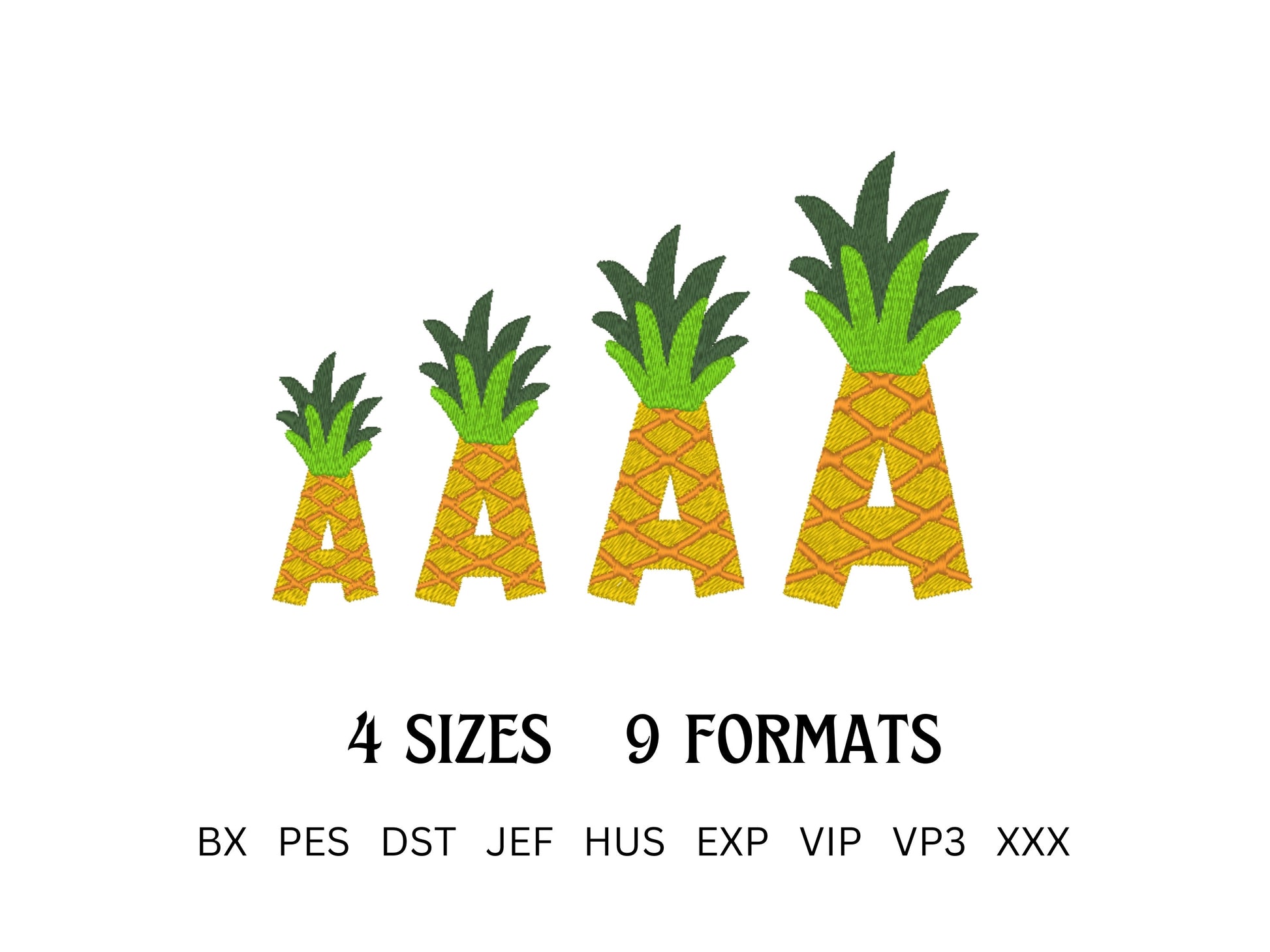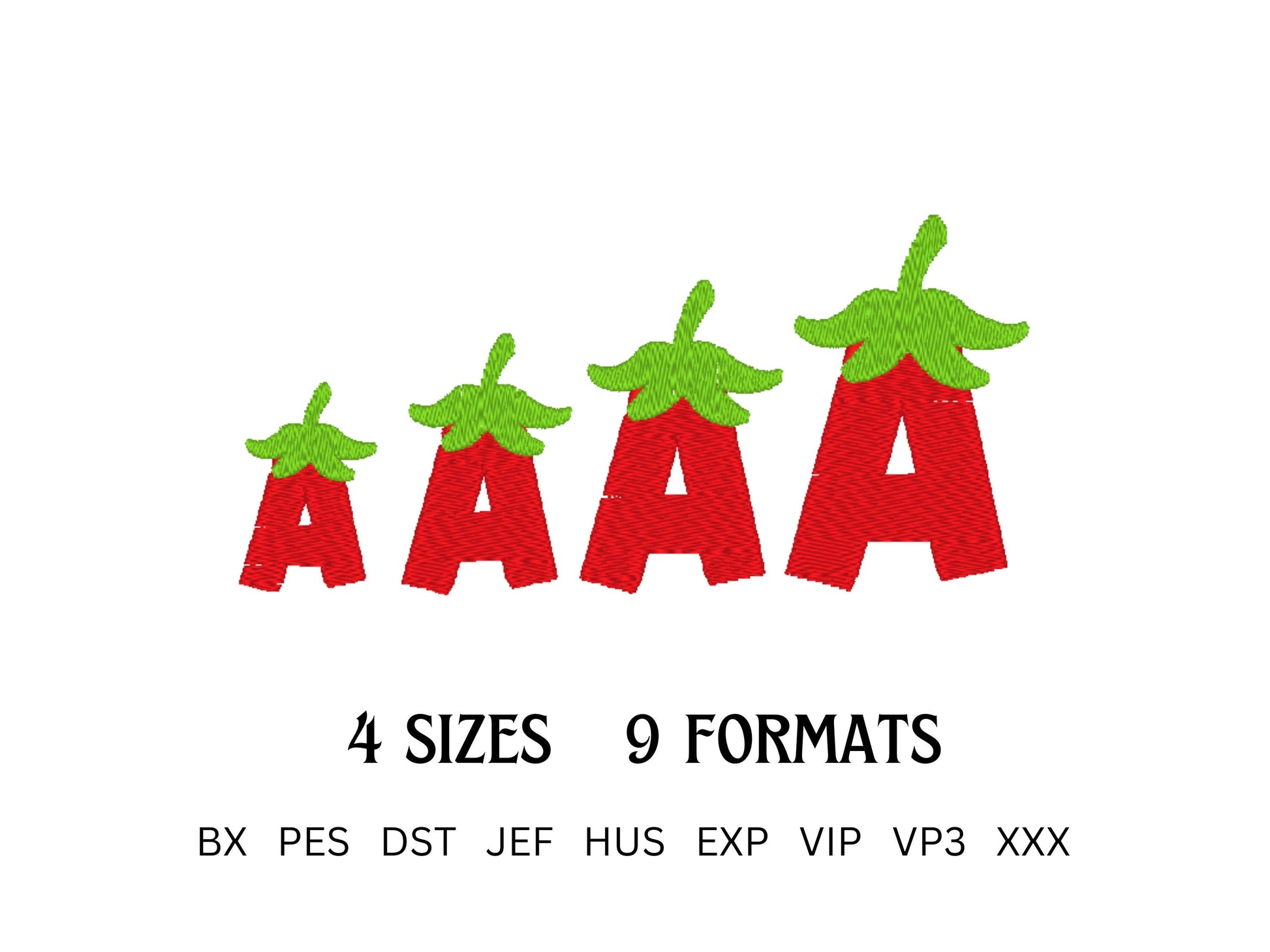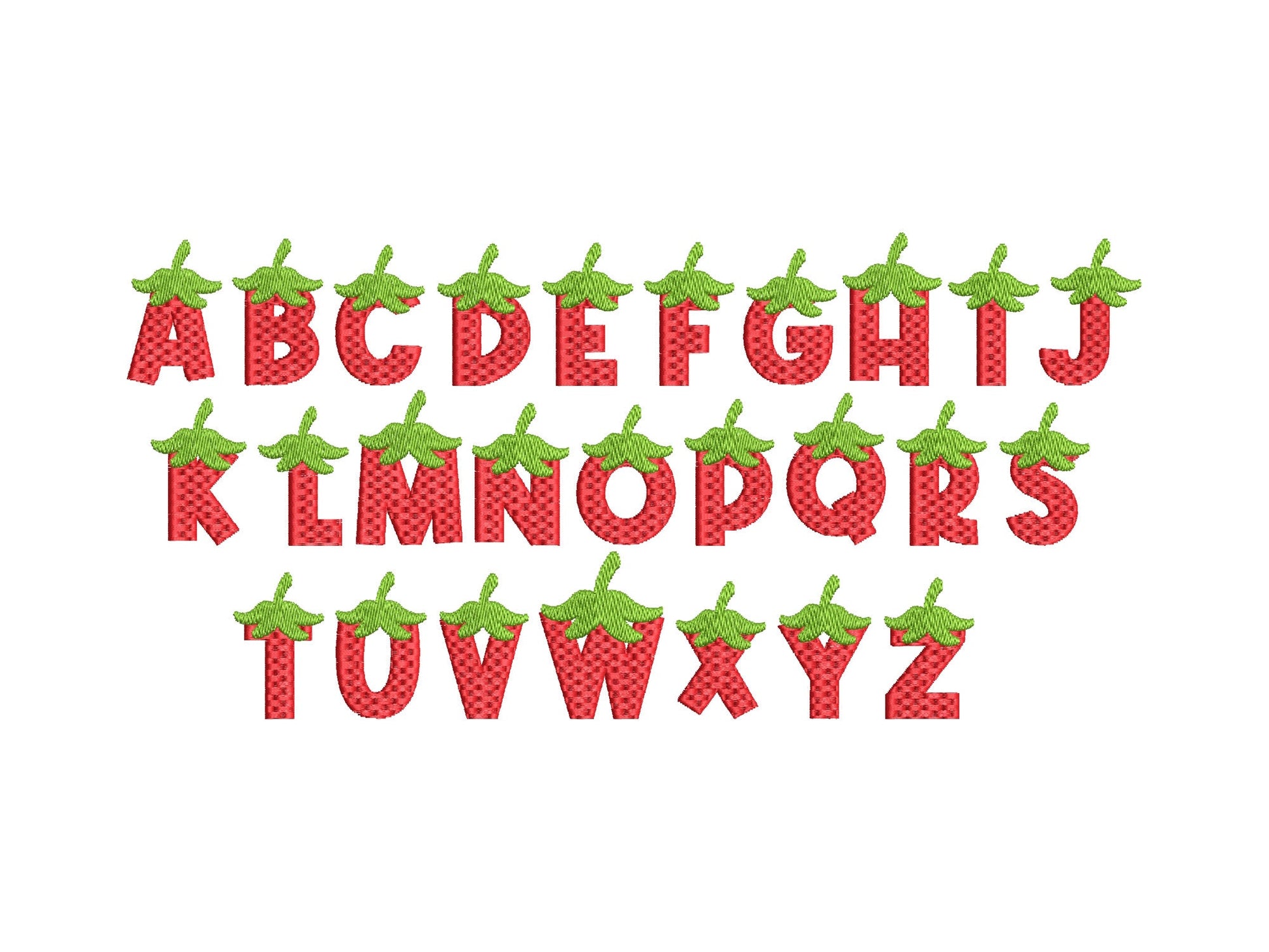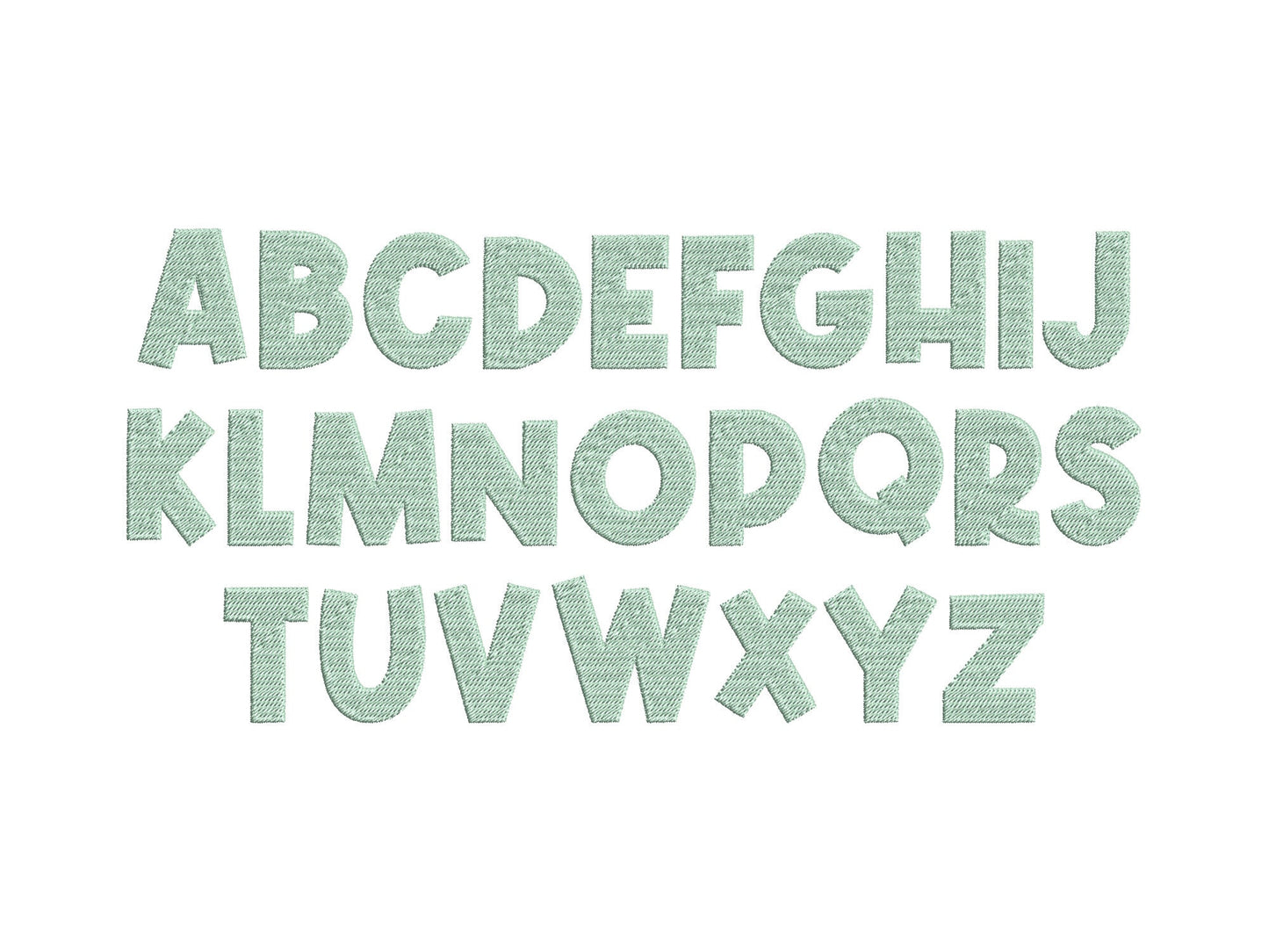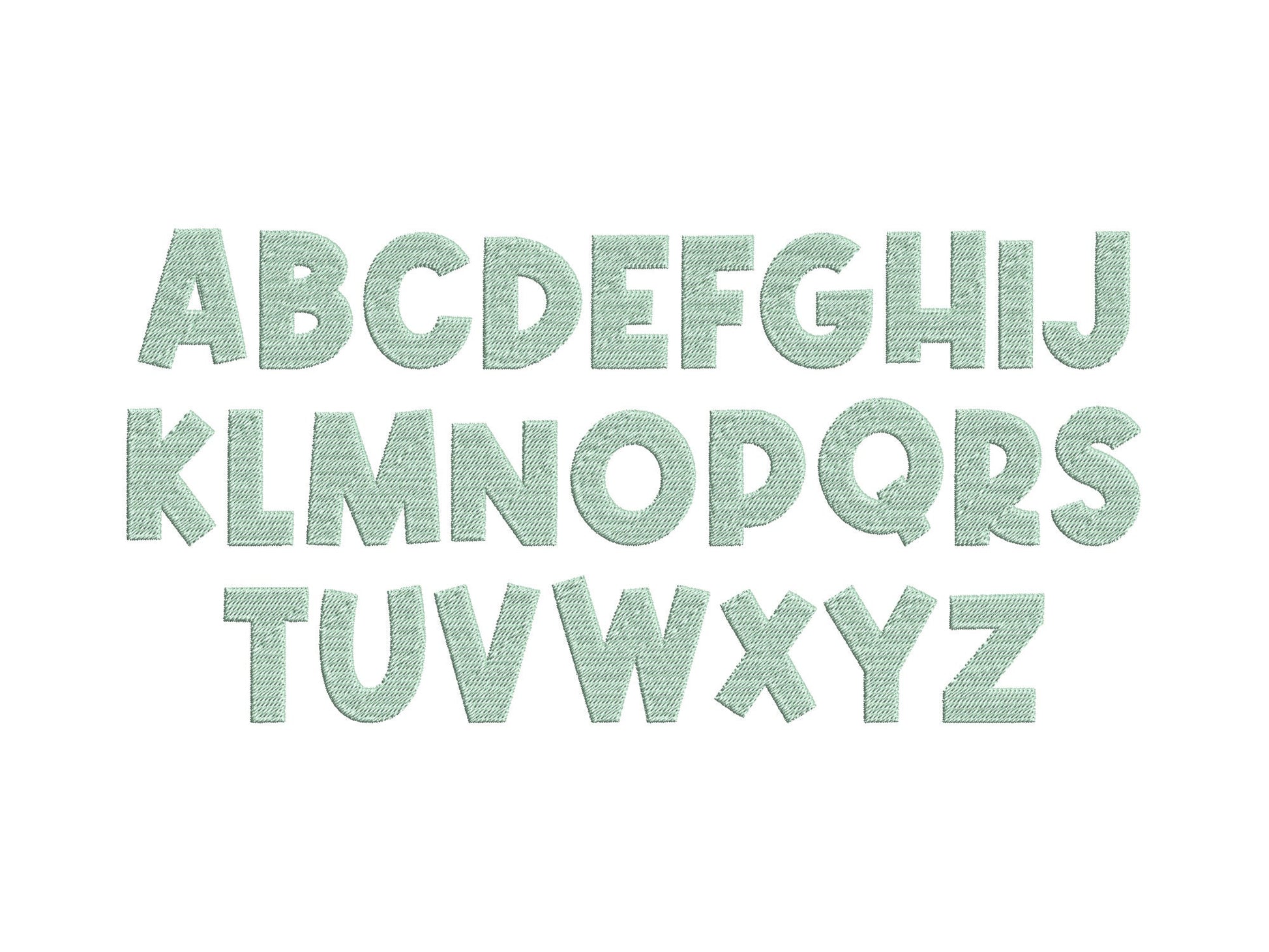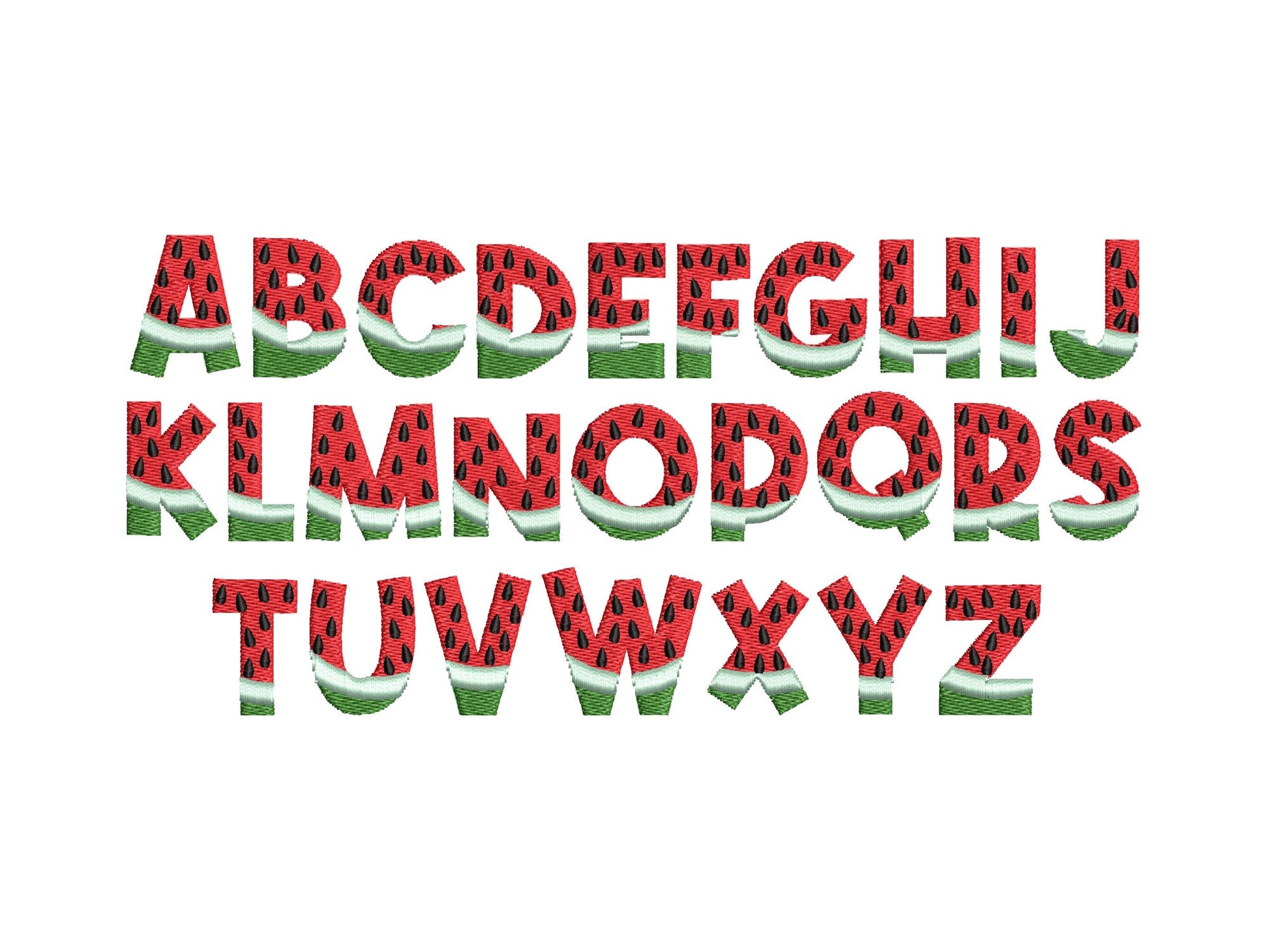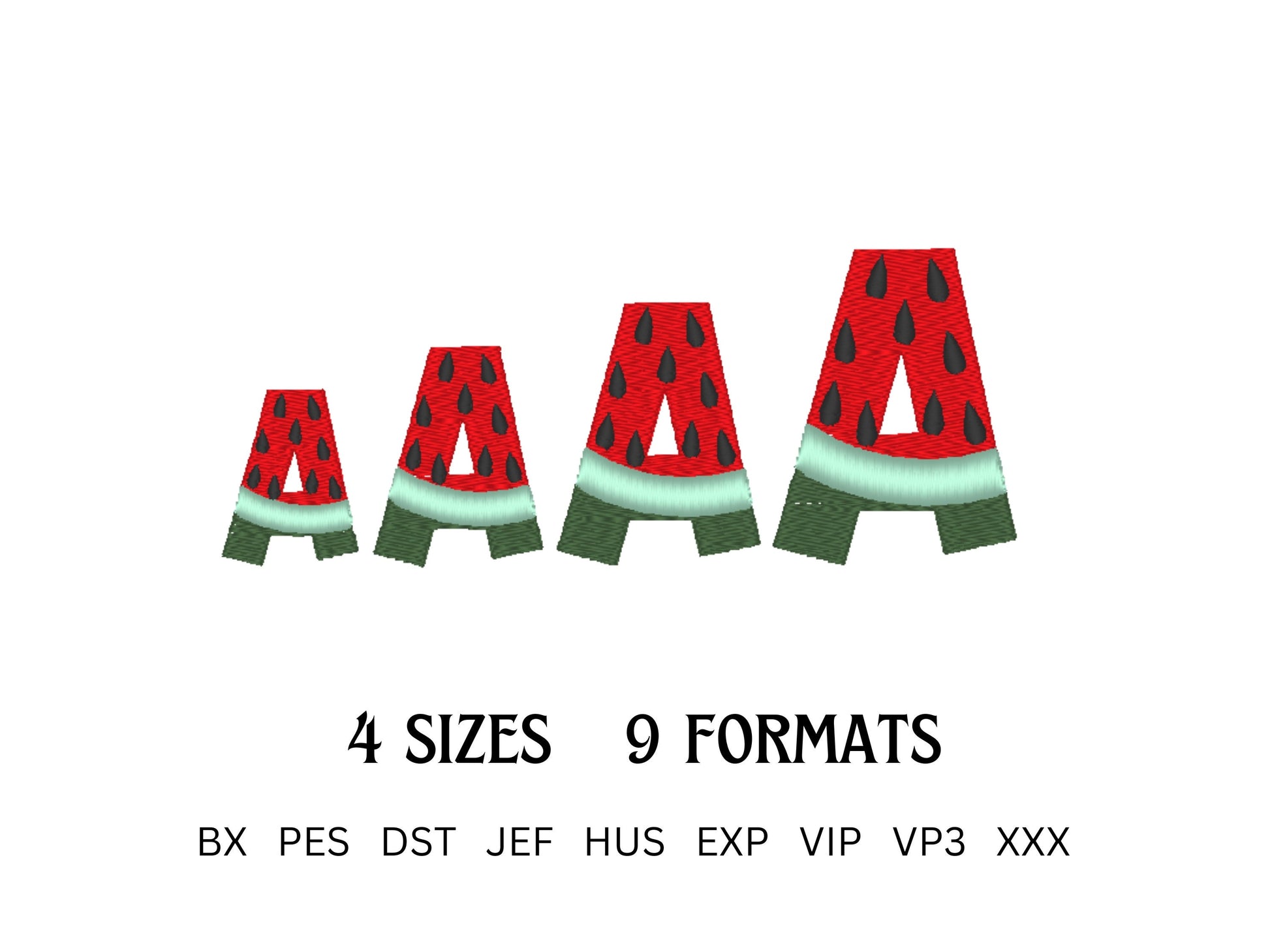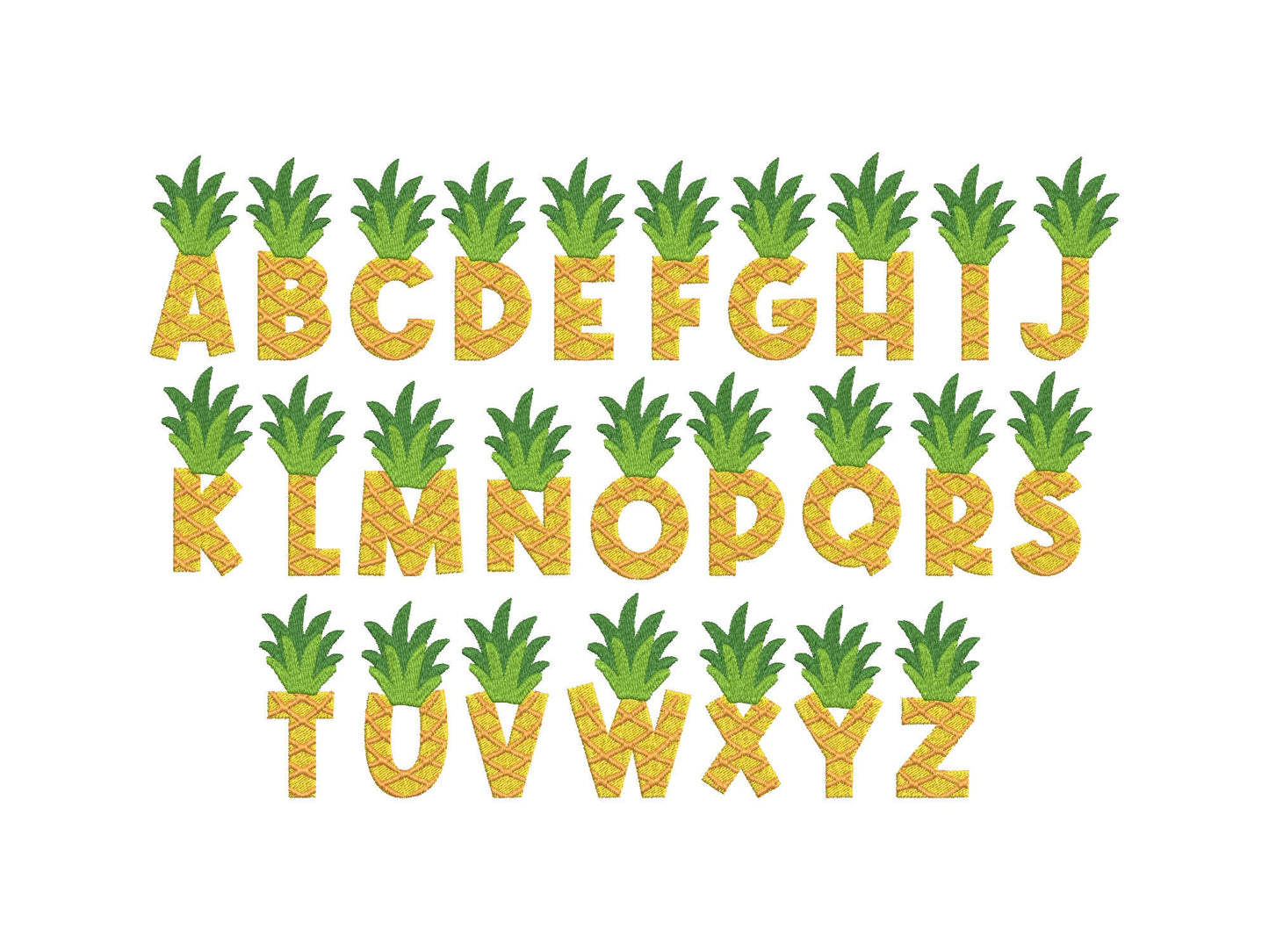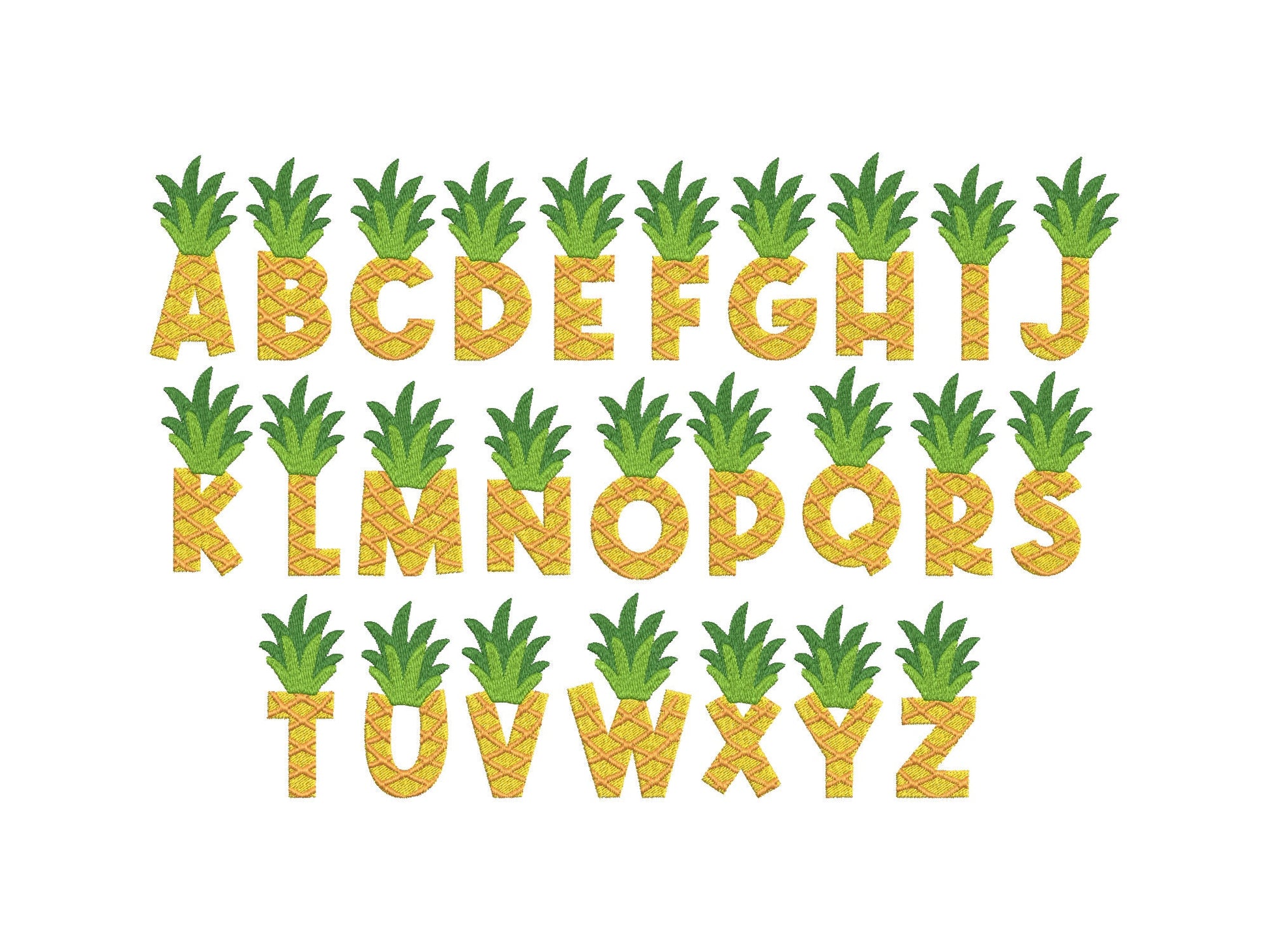
Set of 4 Tutti Frutti Fonts
Included 4 fonts:
* watermelon font
* pineapple font
* strawberry font
* plain font
The fonts are fill stitch and waffle stitch (strawberry font).
Each font contains uppercase A-Z letters.
Merge and combine the letters as you wish. Use different sizes and colors, just play and get awesome results!
*Please note: the size is for the height of the letters. The Strawberry and Pineapple letters are a little higher because they have leaves on the top.